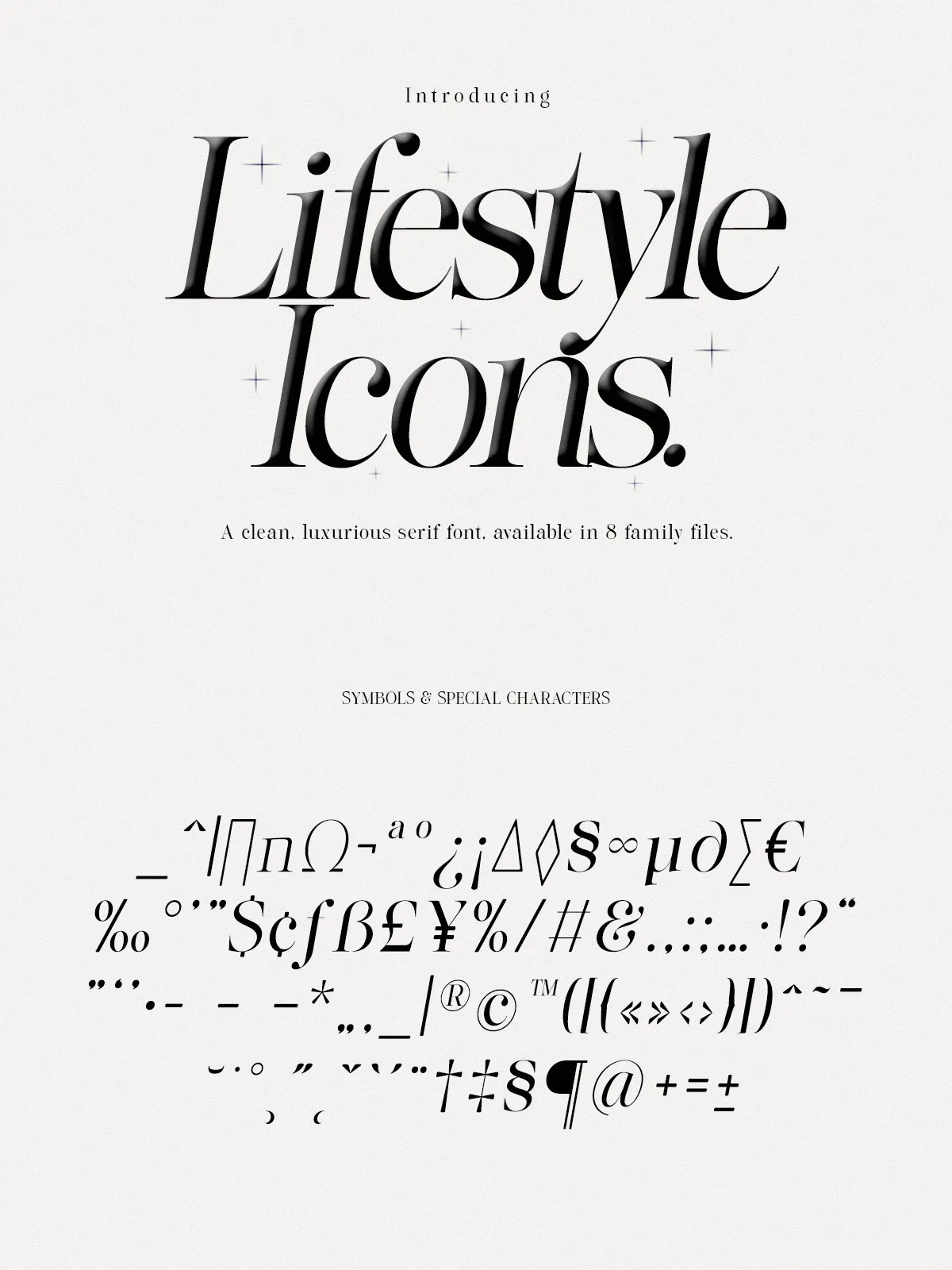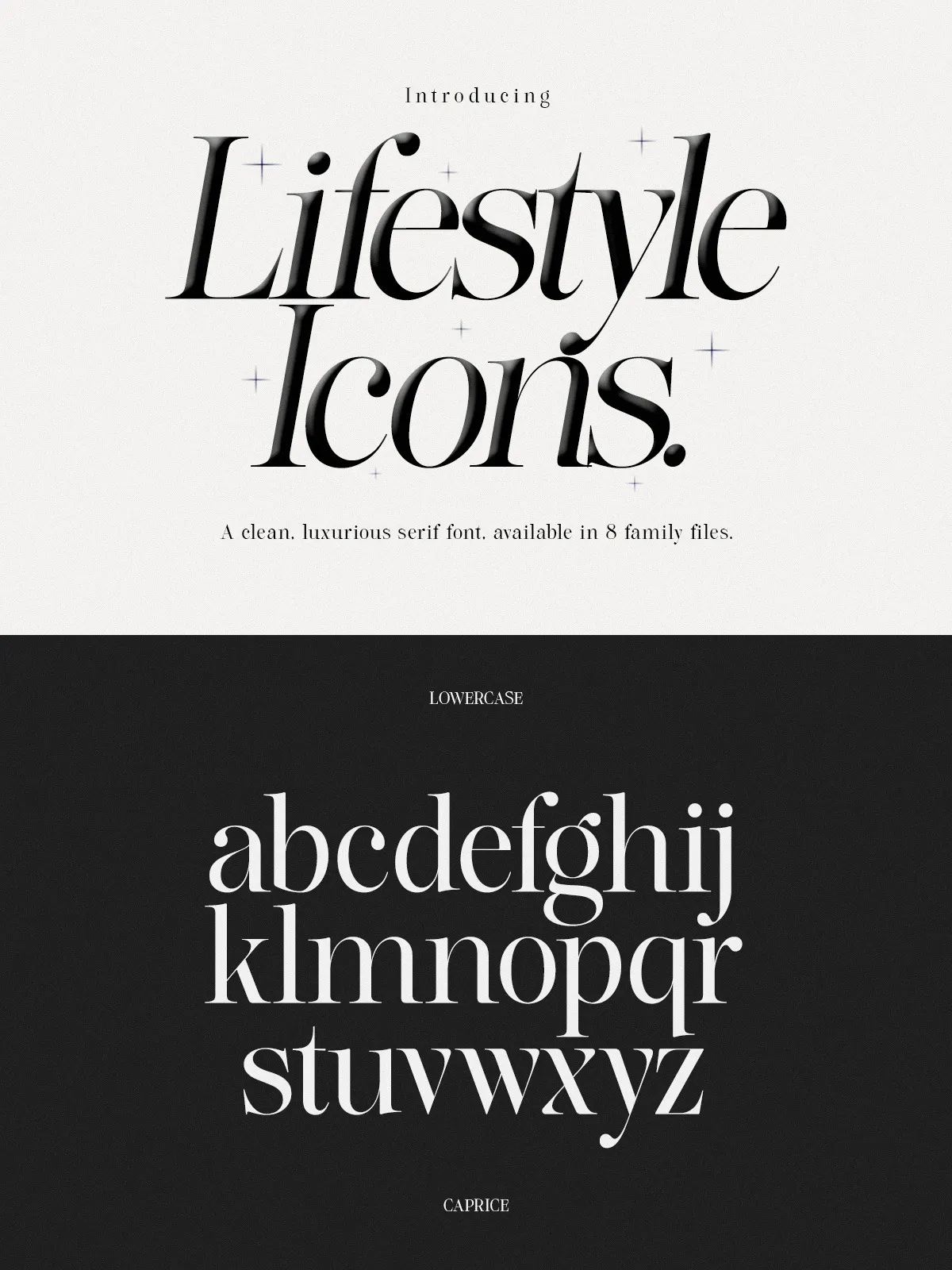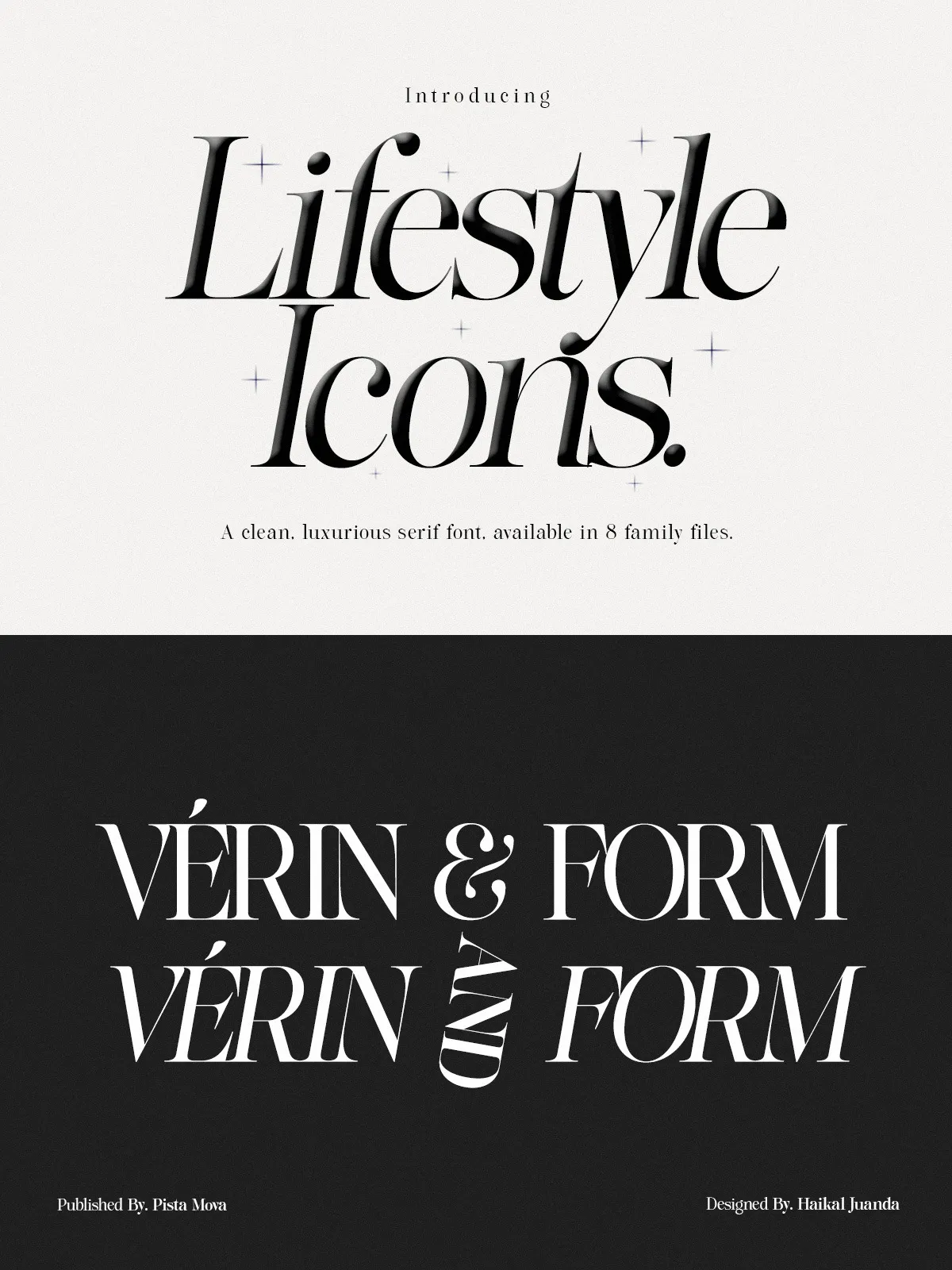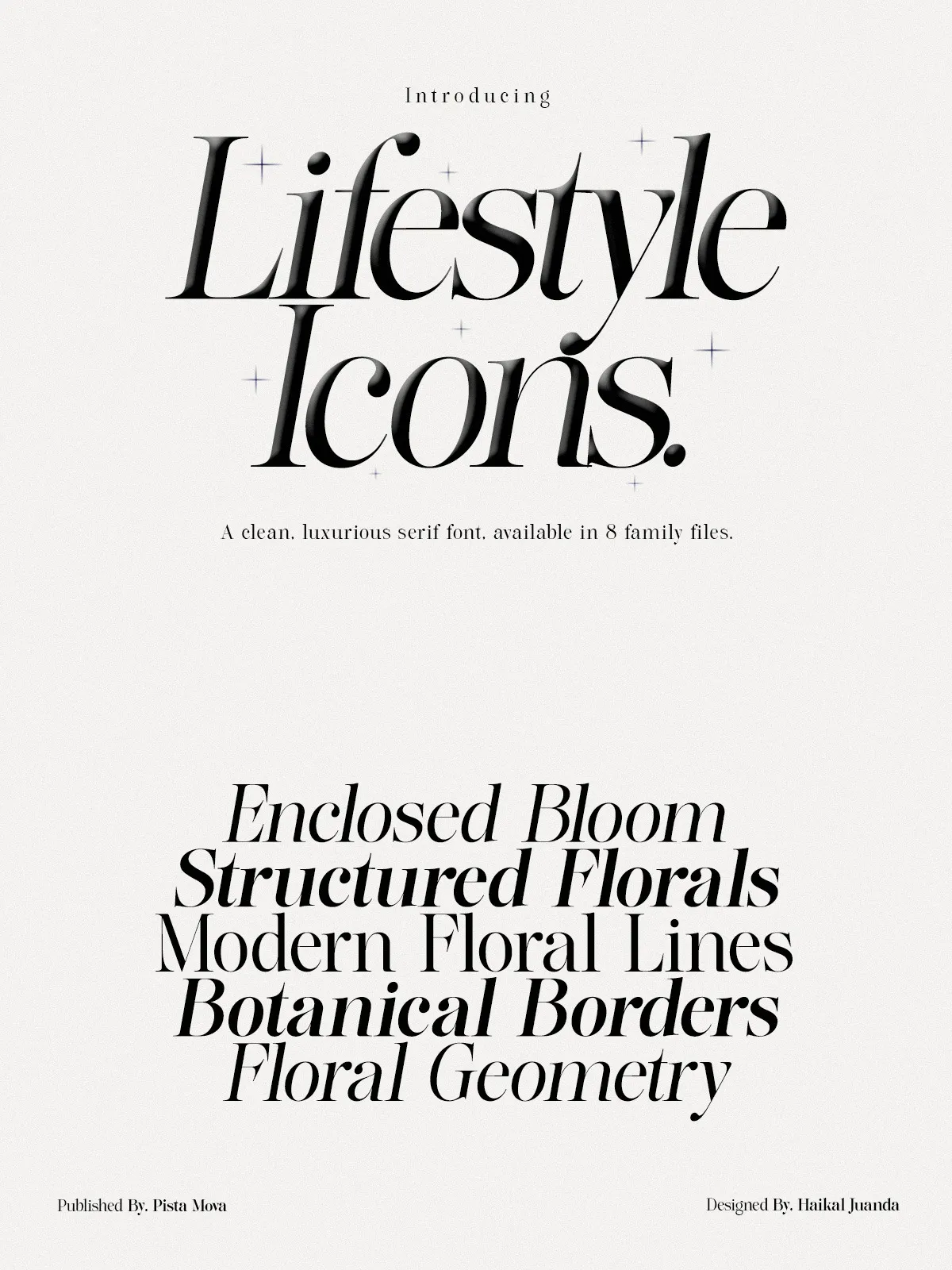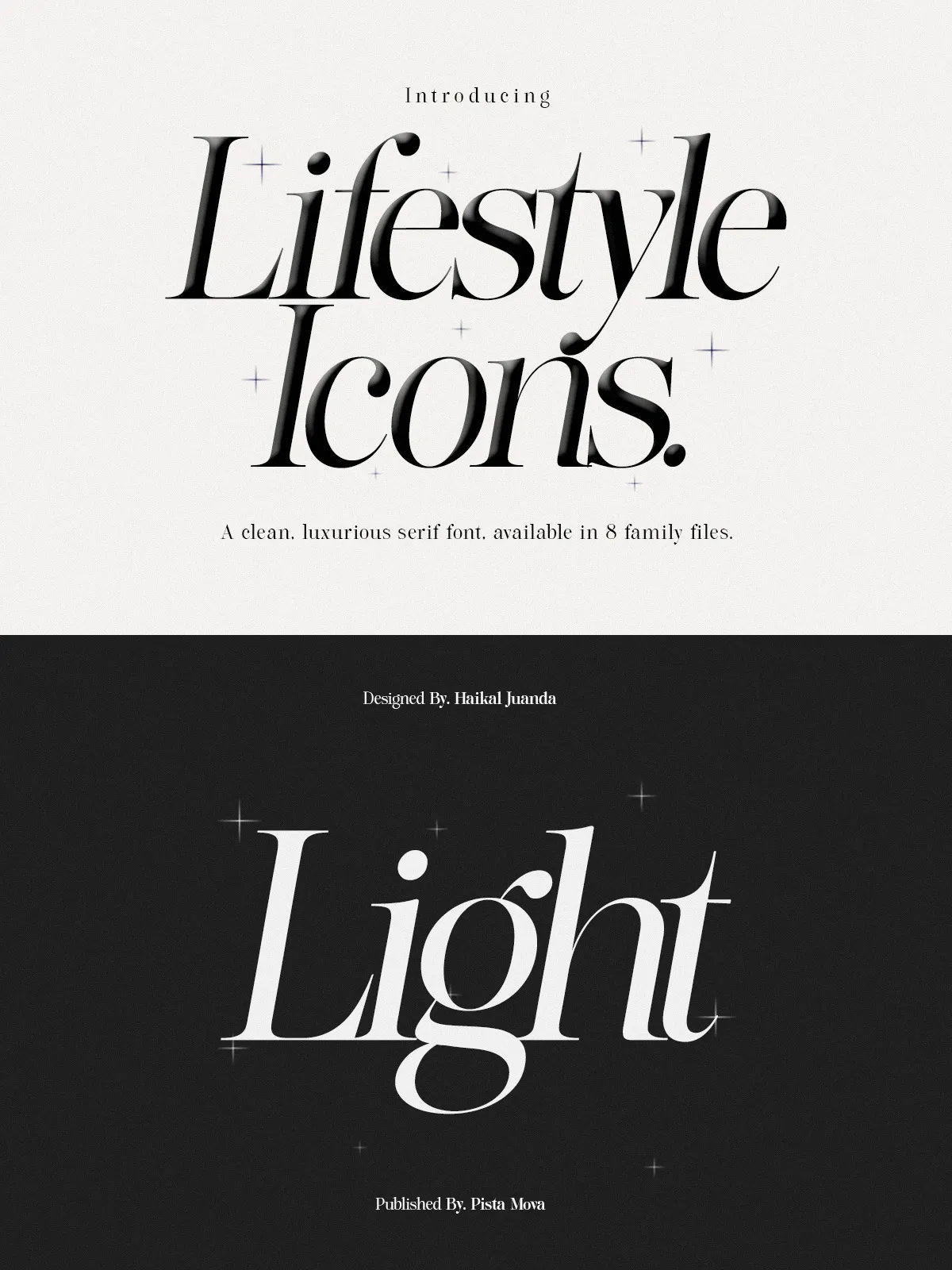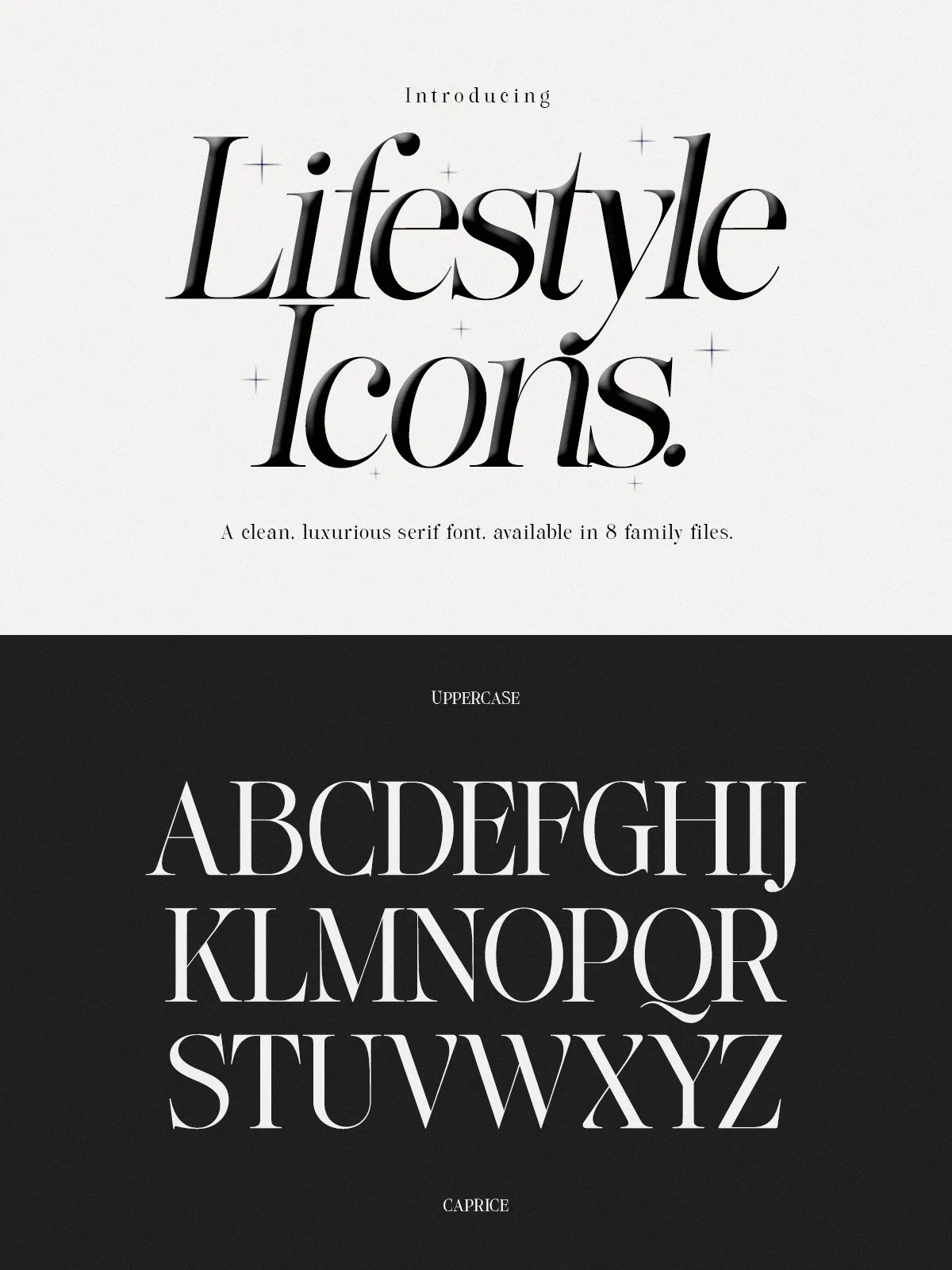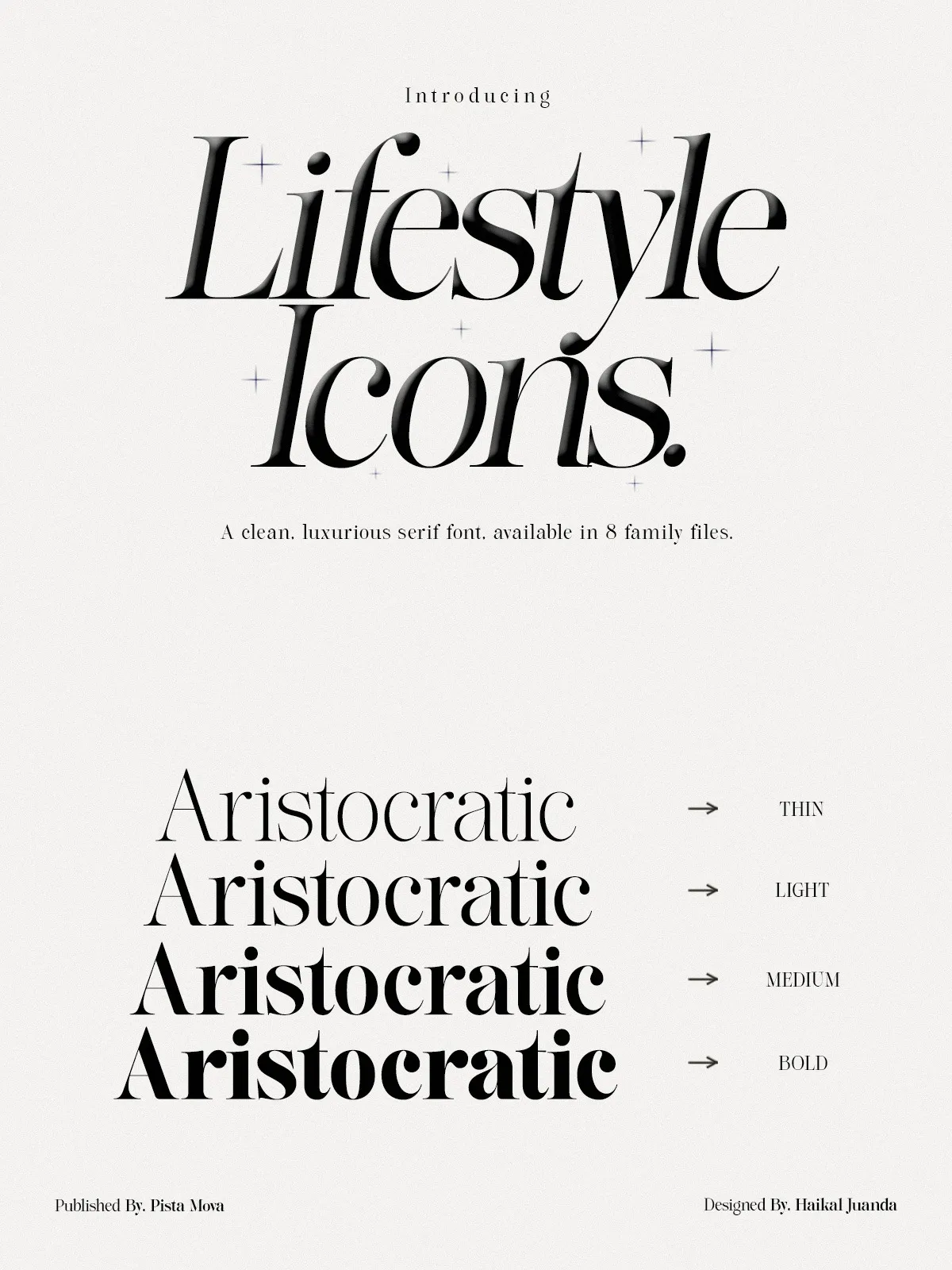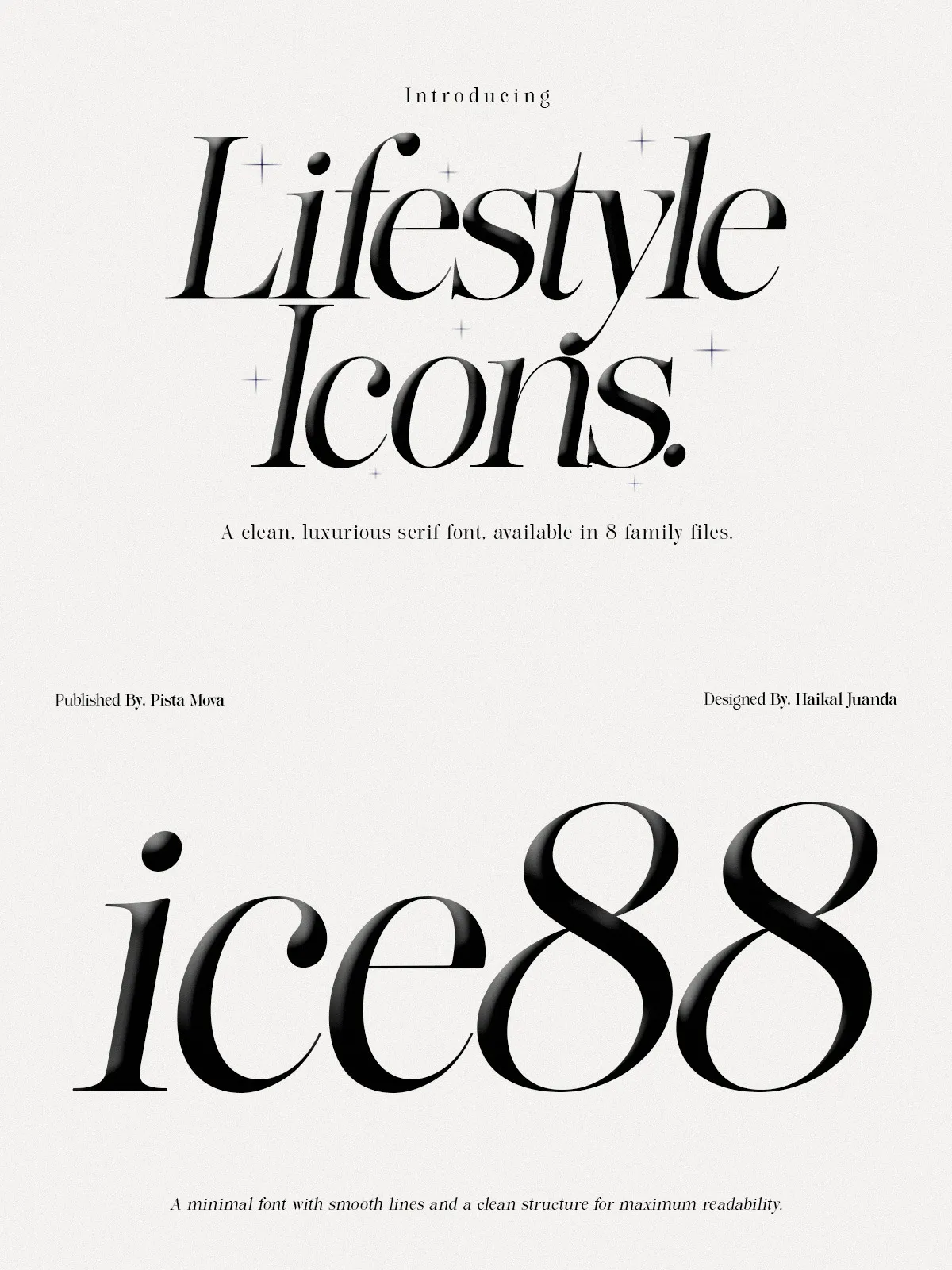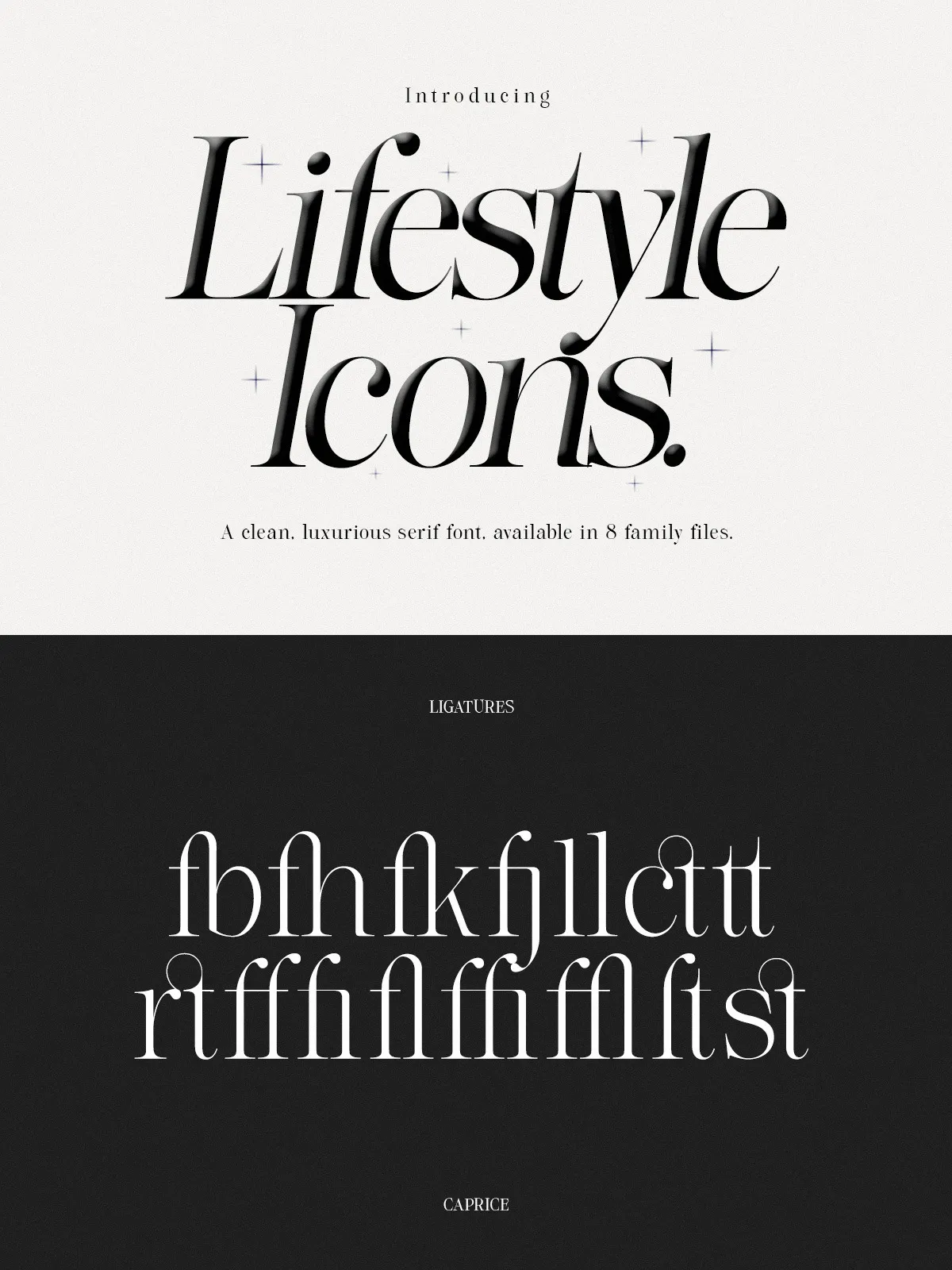
Lifestyle Icons is a carefully crafted serif typeface that brings refined elegance to contemporary design. Built with attention to detail, this family combines classical energy with a modern sensibility to deliver typographic solutions for editorial projects, sophisticated branding, polished web experiences, and premium packaging. The complete package contains eight font files across two complementary styles, providing flexible options for display and text use while maintaining a coherent visual voice.
Design Character
Balanced Proportions and High Contrast
Lifestyle Icons features high-contrast strokes, sculpted serifs, and well-balanced proportions that produce a harmonious visual rhythm. The letterforms present a confident presence without overpowering surrounding content. Each glyph focuses on clarity and elegance, helping headlines and logotypes read with authority while remaining graceful at smaller sizes.
True Italics and Expressive Ligatures
The slanted styles are true italics, not mechanically slanted copies. These italics add organic movement and a distinguishable personality across body copy, pull-quotes, and expressive headlines. Curated ligatures and discretionary alternates deliver subtle typographic flourishes that elevate premium documents and editorial spreads.
- Two Styles, Eight Files: Upright and slanted styles with multiple weights (see included files) to support a wide range of typographic hierarchies.
- True Italics: Purpose-built italics harmonize with the upright styles for consistent rhythm and refined emphasis.
- Elegant Ligatures: Select ligatures add character and bespoke letter connections for high-end branding and editorial work.
- Extensive Language Support: Supports over 90 languages to ensure global reach and accurate typographic rendering.
- High Contrast & Readability: Optimized for both print and screen, preserving clarity across sizes and resolutions.
Practical Applications
Editorial Design
Use Lifestyle Icons to create timeless magazine spreads, book interiors, and long-form layouts. Its balanced strokes and intelligent spacing sustain excellent readability while contributing a refined aesthetic to body text, pull-quotes, and chapter headings.
Branding & Logos
Apply the typeface to brand identities, logotypes, and corporate collateral to communicate sophistication and credibility. The family’s typographic nuance helps create memorable wordmarks and cohesive brand systems.
Web Design & Digital Interfaces
Deploy Lifestyle Icons on websites where a premium tone matters—editorial portals, luxury retail, and portfolio sites. The high-contrast forms translate well to modern screens when paired with responsive CSS and webfont optimization techniques.
Packaging & Print
Elevate product labels, packaging, stationery, and invitation suites with the typeface’s understated luxury. The ligatures and italic styles add a handcrafted feeling that complements tactile print finishes.
- Complete glyph set including accented characters and punctuation
- Language Support: Extended Latin with diacritics covering over 90 languages.
- OpenType Features: Ligatures, true italics, discretionary alternates, and kerning pairs for professional typesetting.
Best Practices & Pairing Suggestions
Usage Tips
- Reserve Lifestyle Icons for headings, brand identity, packaging, and prominent editorial elements where its contrast and detail shine.
- For long body copy at small sizes, test line-length and leading to maintain comfortable readability.
- Use the true italics for emphasis rather than a mechanical slant to preserve typographic integrity.
Pairing Recommendations
Pair Lifestyle Icons with neutral sans-serifs or modern humanist typefaces to balance its high-contrast forms. Clean geometric or neo-grotesque sans faces work well for UI and small copy, while a low-contrast serif can complement it in extended editorial systems.